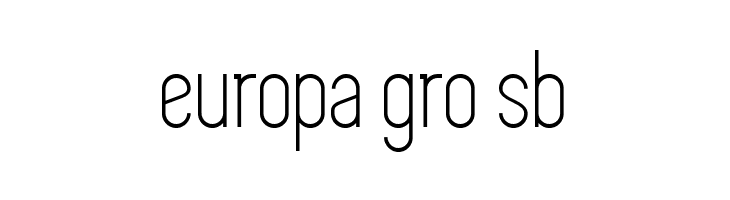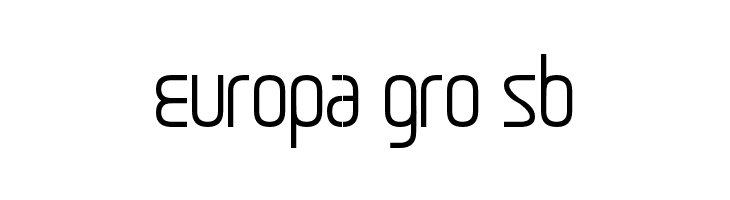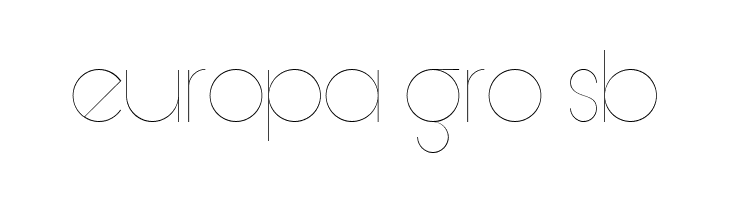
A sleek, modern, and condensed thin font with a minimalist aesthetic.
A modern, geometric font with rounded edges and a clean, minimalistic style.
A modern, geometric font with clean lines and a minimalist style.